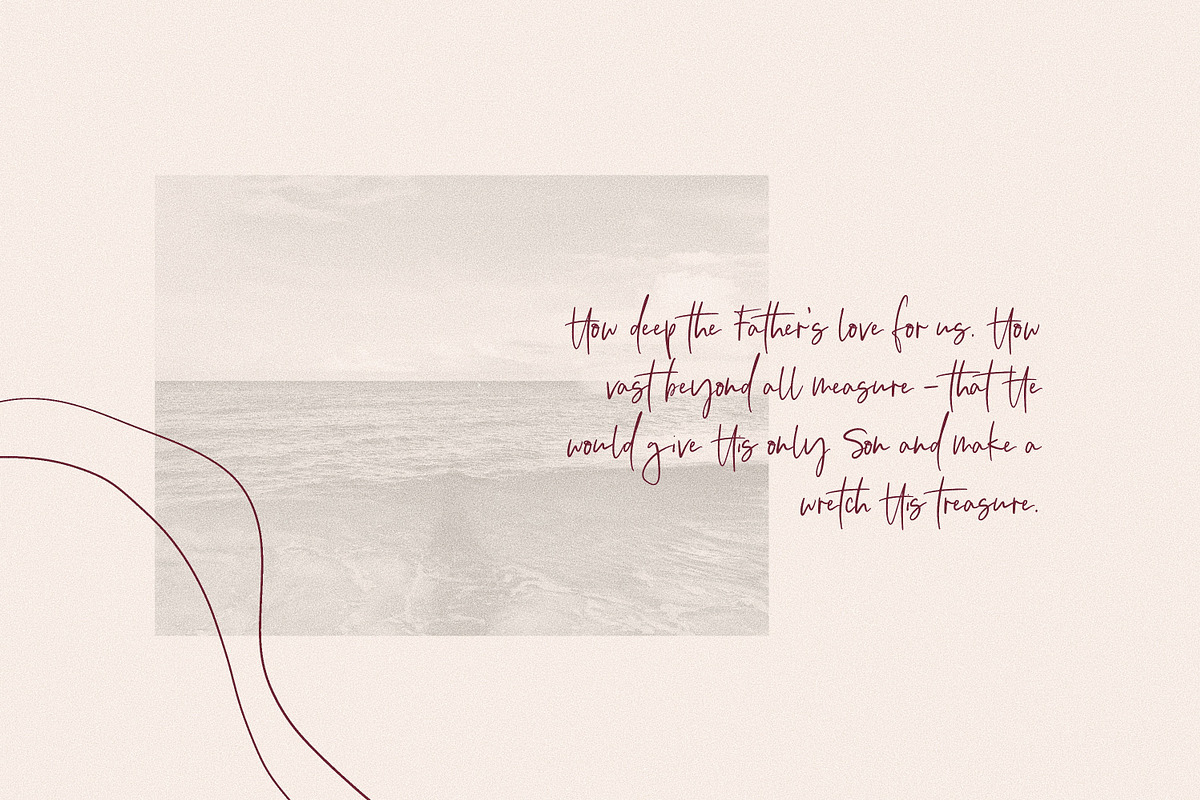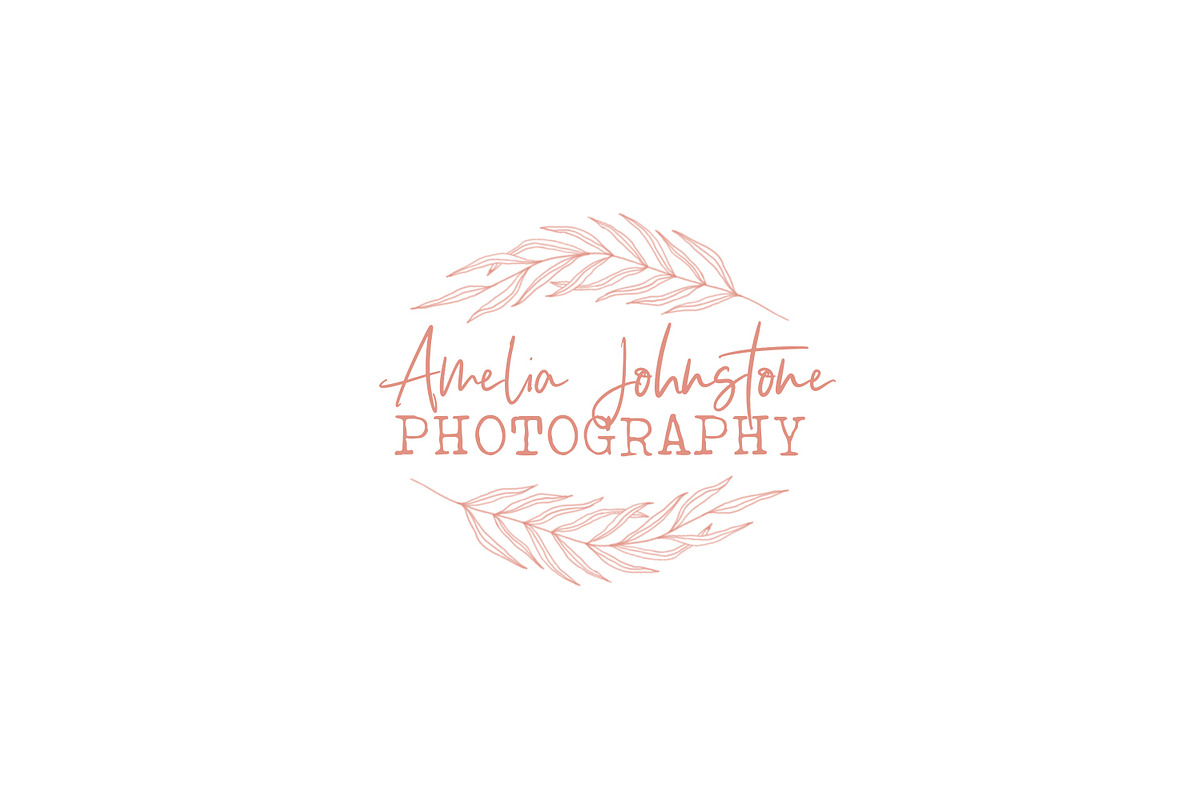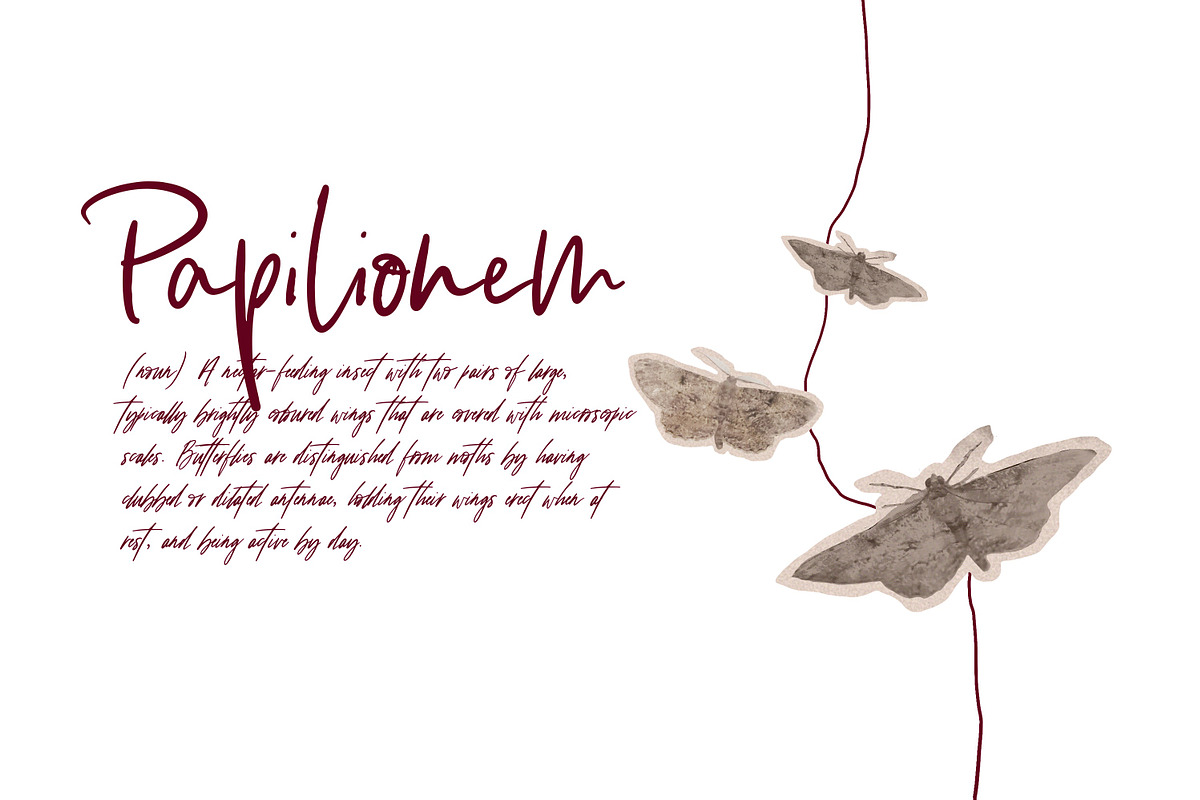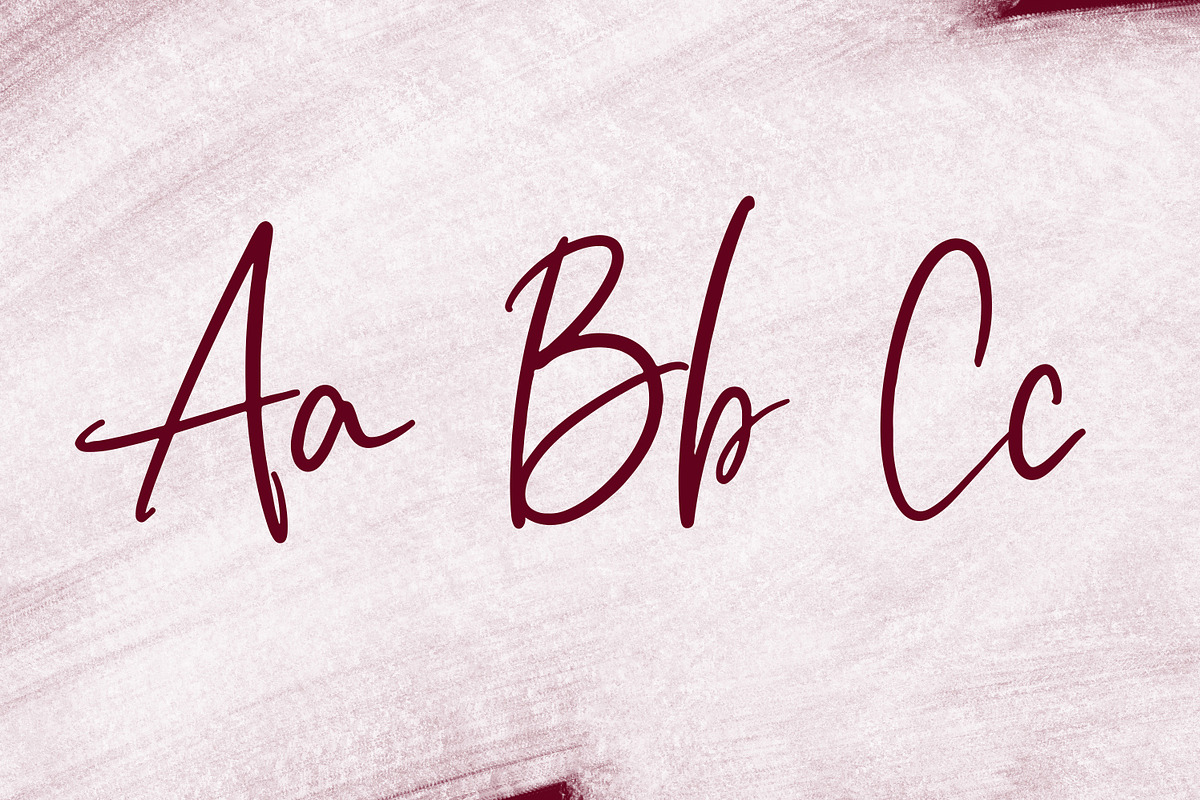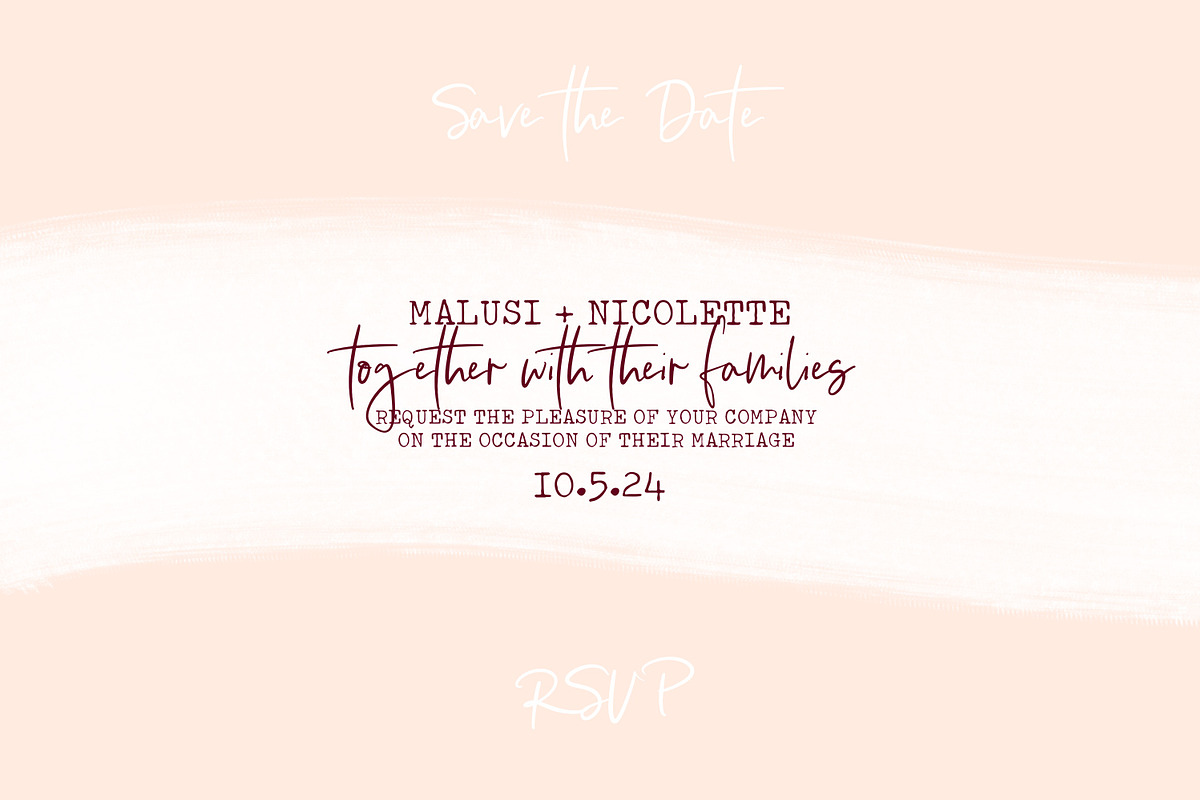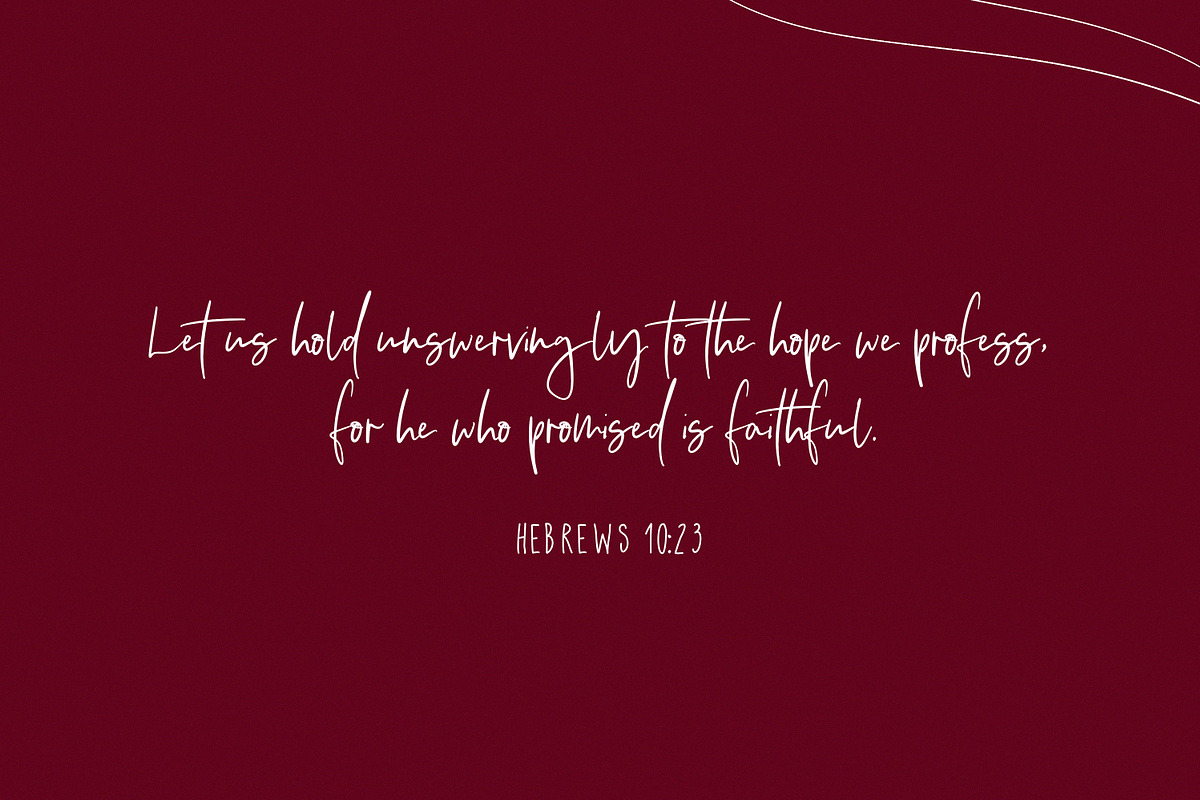
Illumination | Script Font
Inspired by light both created and poured out into darkness, and a life lived far from the shadows, Illumination is a hand-written, feminine script font.
Illumination boasts a whimsical, light, feminine feel and is perfect for logos, branding, invitations, website and more!
For you, light-bringer; that you may step out of the shadows and into those bright spaces you were made for, shining for all the world to see.